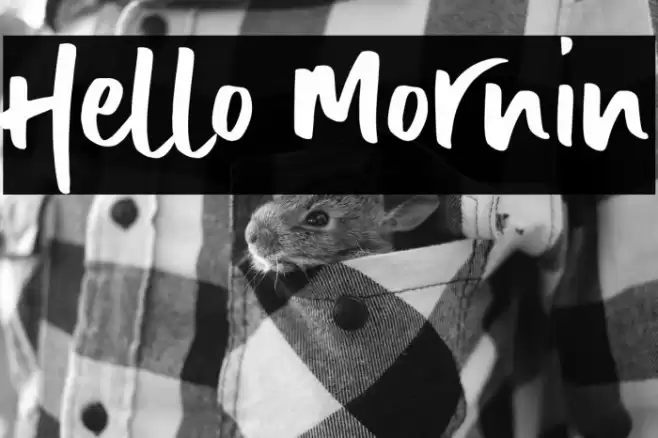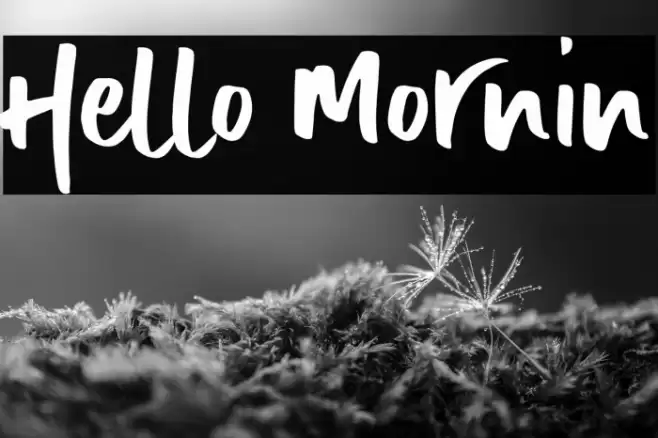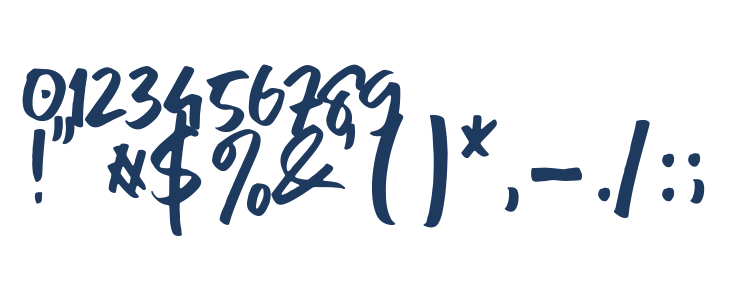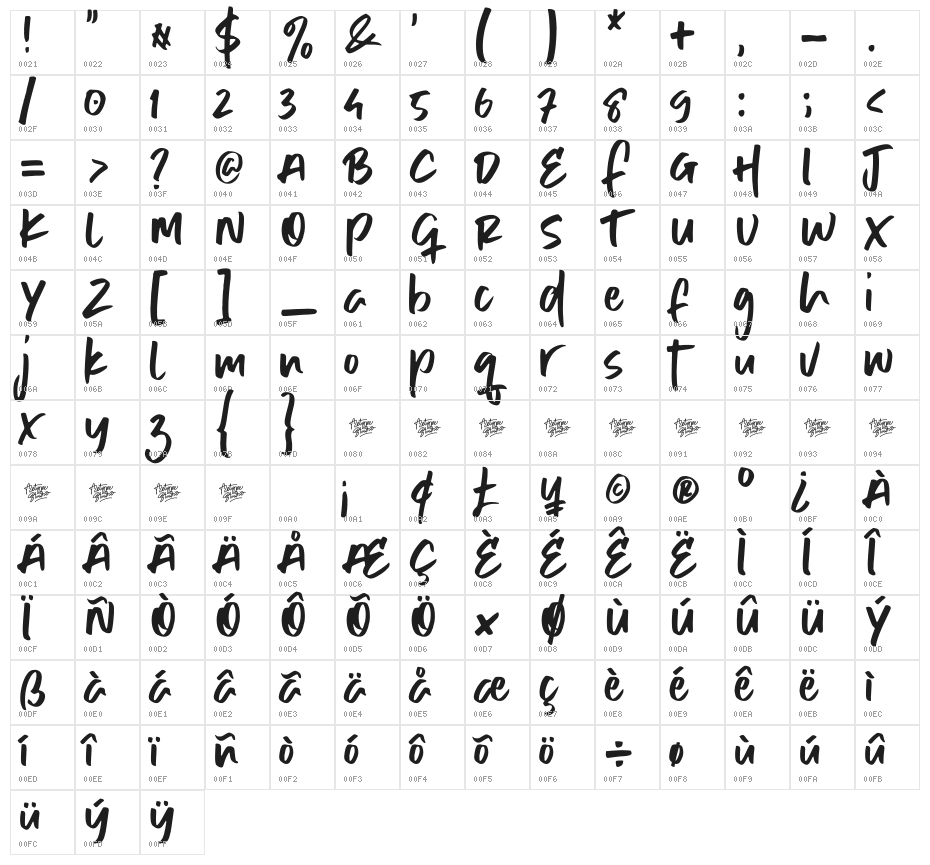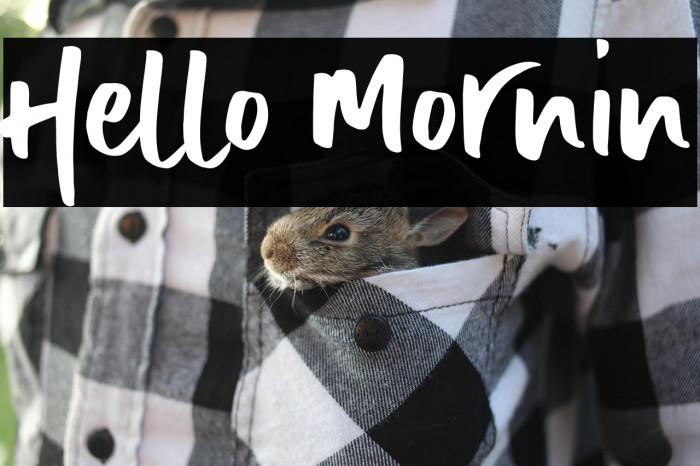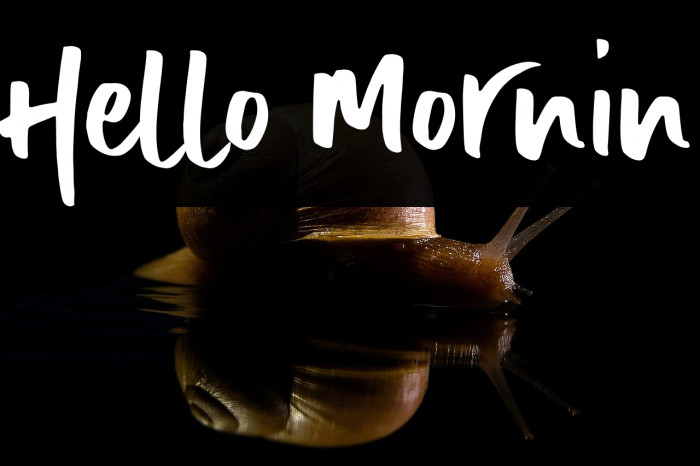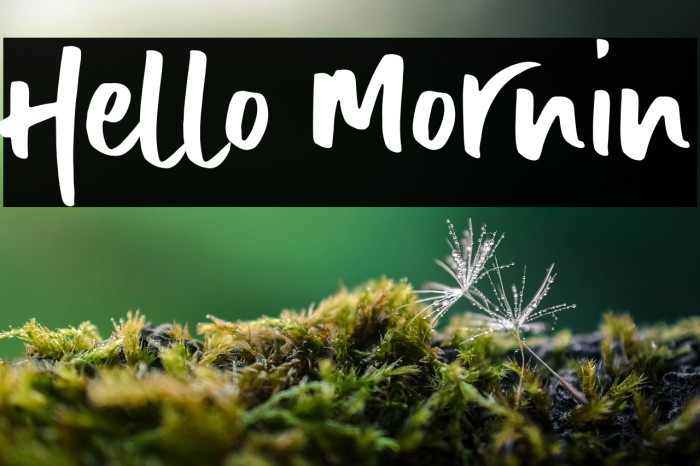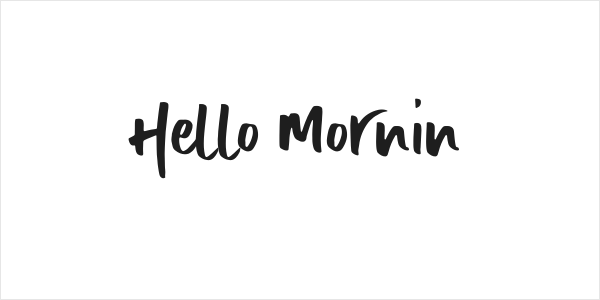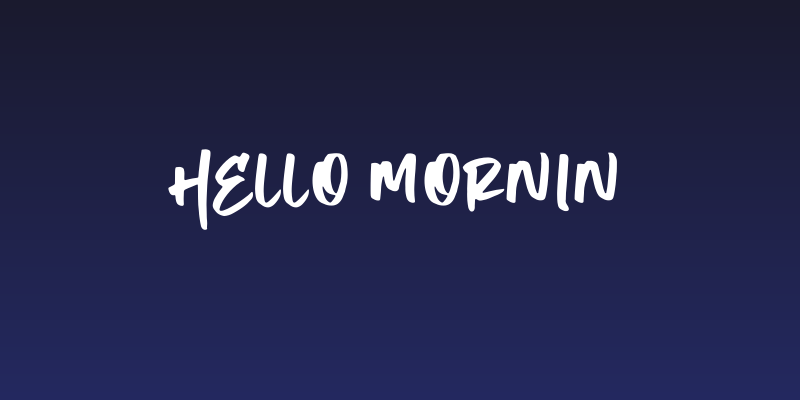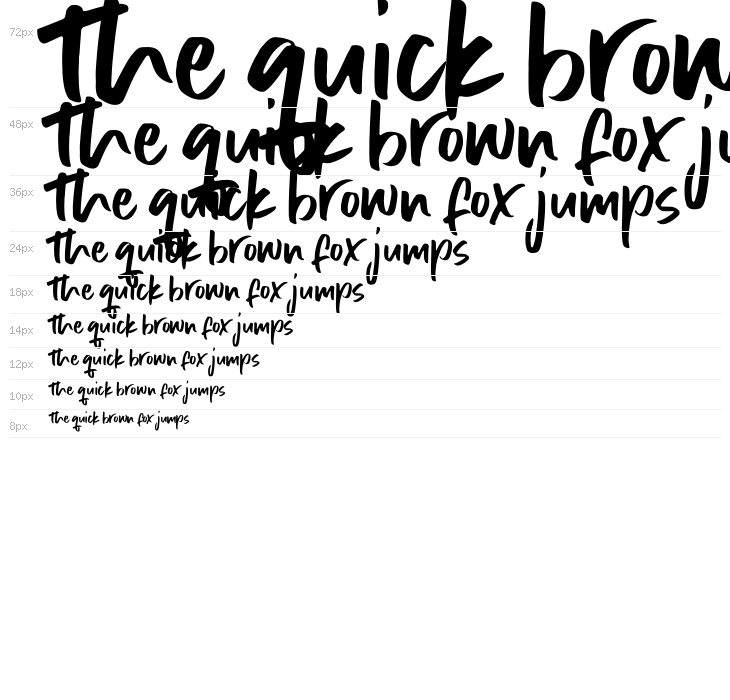
Hello Mornin Font
Hello Mornin Description
This font exudes a lively and energetic vibe, characterized by its bold, handwritten style. The letters are crafted with a brush-like texture, giving them a dynamic and spontaneous appearance. The uppercase and lowercase letters maintain a consistent flow, with slightly irregular strokes that add to the font's charm. Numbers and special characters follow the same expressive style, making the font versatile for various creative applications. Its informal and playful nature makes it ideal for projects that require a personal touch or a sense of fun.
A bold, handwritten font with a lively and energetic brush-like style from Regular fonts.
- Font: Hello Mornin
- Proposed Projects: Ideal for greeting cards, posters, social media graphics, and branding that requires a personal or playful touch.